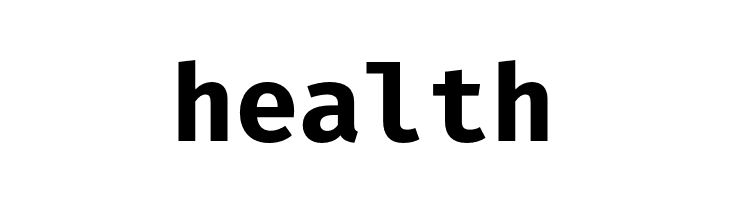
A bold, geometric font with a futuristic, digital aesthetic.
A modern, monospaced typeface with uniform character width and clean, geometric shapes.
A modern, monospaced font with clean lines and even spacing, perfect for coding.
A bold, monospaced font perfect for coding and technical documentation.
A bold, monospaced font ideal for coding and data presentation.
A modern, monospaced font with uniform character width and clear readability.
A monospaced font with uniform character width, ideal for coding and tabular data.
A clean, modern monospaced font ideal for coding and technical documentation.
A modern, clean sans-serif font with excellent readability and geometric design.
A bold, geometric sans-serif font with strong, clean lines.